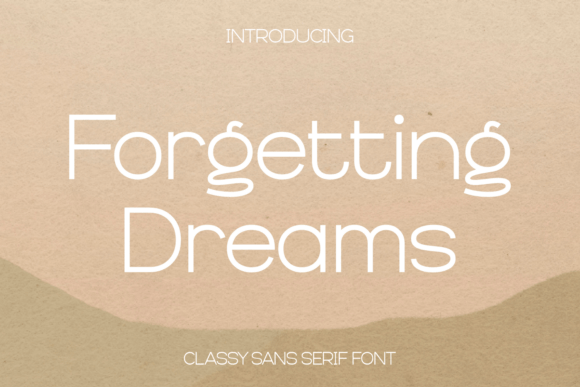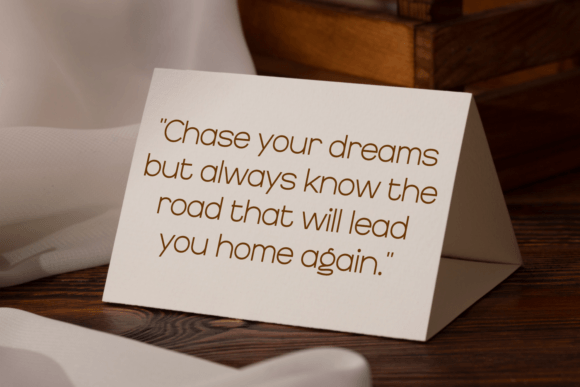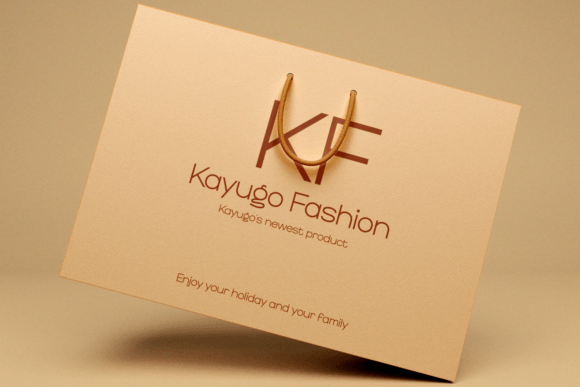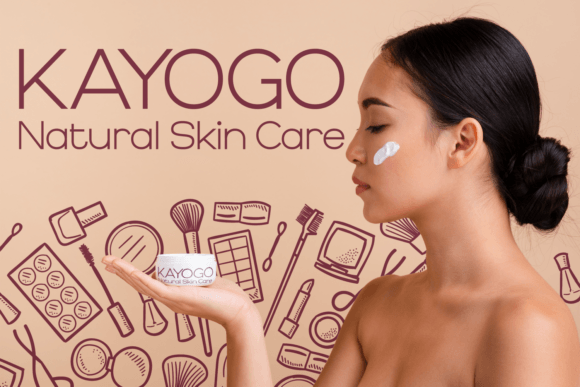
Forgetting Dreams Font: Minimalist Sans Serif for Modern Branding & Aesthetic Design
About the Forgetting Dreams Font
Elevate your designs with Forgetting Dreams Font, a font that combines sophistication with readability. Forgetting Dreams is a modern sans-serif font that blends elegance with subtle minimalism. Its clean lines and soft curves evoke a sense of nostalgia and tranquility, perfect for branding, editorial designs, and creative projects seeking a timeless yet contemporary aesthetic.
This font excels in headlines, short-form text, and logo design, where its elegant simplicity makes a strong visual statement. It’s ideal for brands conveying sophistication and calm, such as high-end fashion, luxury goods, or wellness products. Avoid using it for large blocks of body text or UI elements; its subtle details can get lost at smaller sizes.
Forgetting Dreams’ soft, modern personality pairs well with both serif and script fonts. Consider pairing it with a classic serif like Garamond for a sophisticated contrast, or a flowing script like Allura for a touch of romanticism. A geometric sans-serif like Futura could also offer a complementary modern feel.
The font’s overall aesthetic is sophisticated and understated. Its clean lines and gentle curves project a sense of quiet confidence and timeless appeal.
Forgetting Dreams Font Usage Examples
Forgetting Dreams Font Example